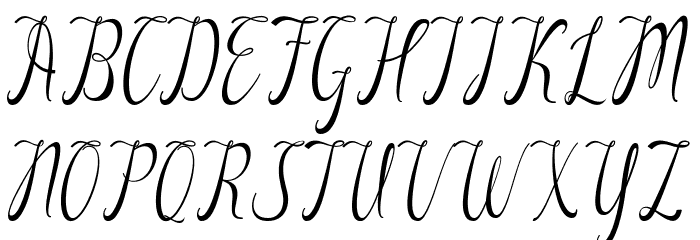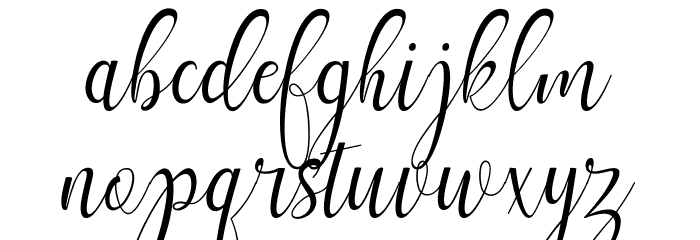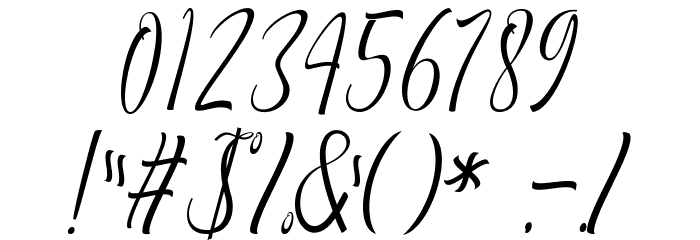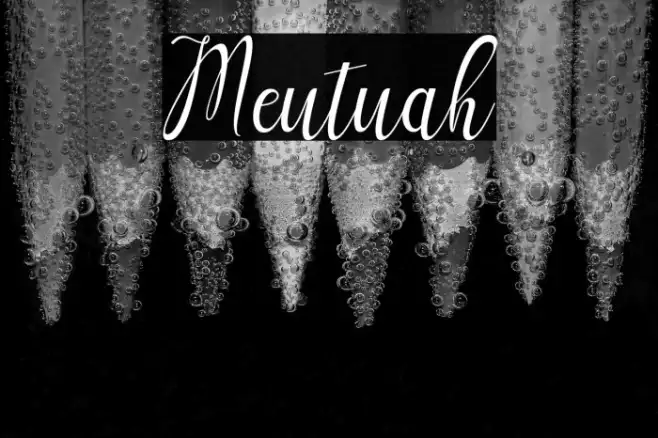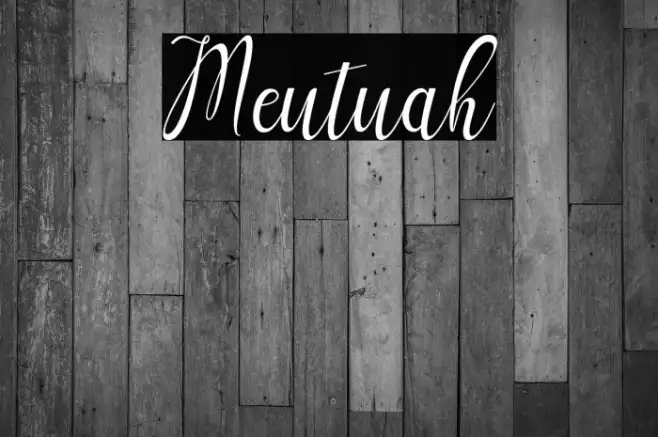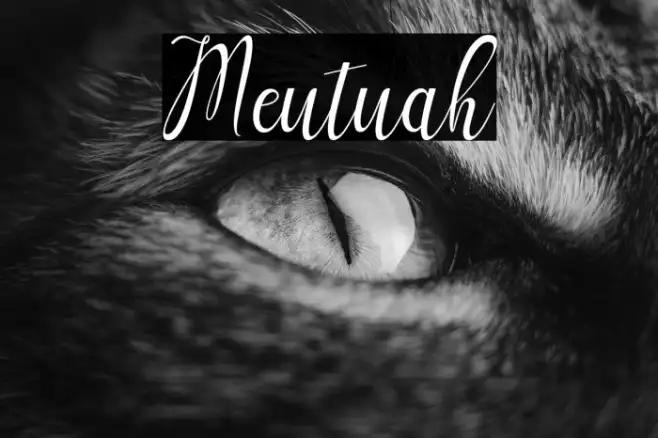
Meutuah Font
This elegant script font features a flowing, cursive style with a sophisticated flair. The characters are connected with smooth, sweeping strokes, giving it a graceful and fluid appearance. The uppercase letters are tall and slender, while the lowercase letters maintain a consistent flow, enhancing readability. The numerals and special characters are designed to complement the overall aesthetic, maintaining the same elegant curves and lines. This font exudes a sense of luxury and refinement, making it ideal for projects that require a touch of class and elegance.
A graceful and elegant script font with flowing, cursive strokes.
- Font: Meutuah
- Proposed Projects: Ideal for wedding invitations, elegant branding, luxury product packaging, and sophisticated stationery.
- Category: Script
- Overall Style: Elegant
- Use Case: Logos, Invitations, Branding